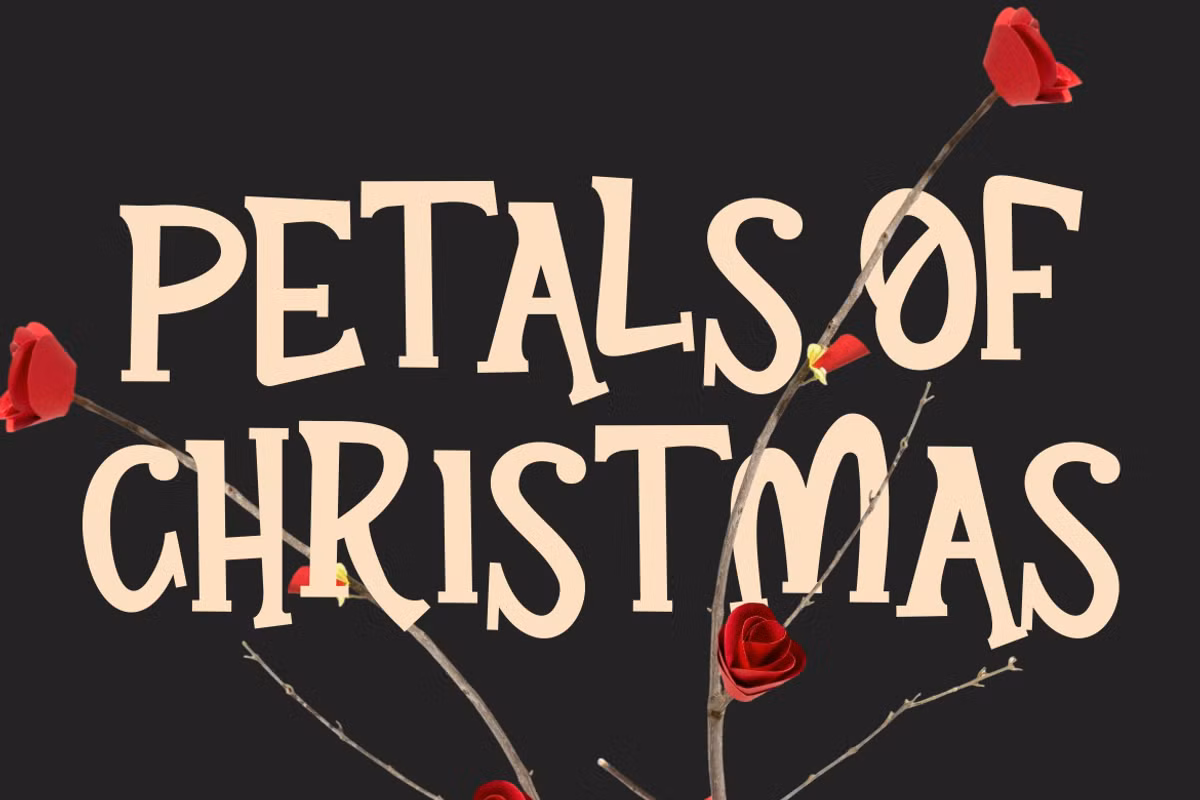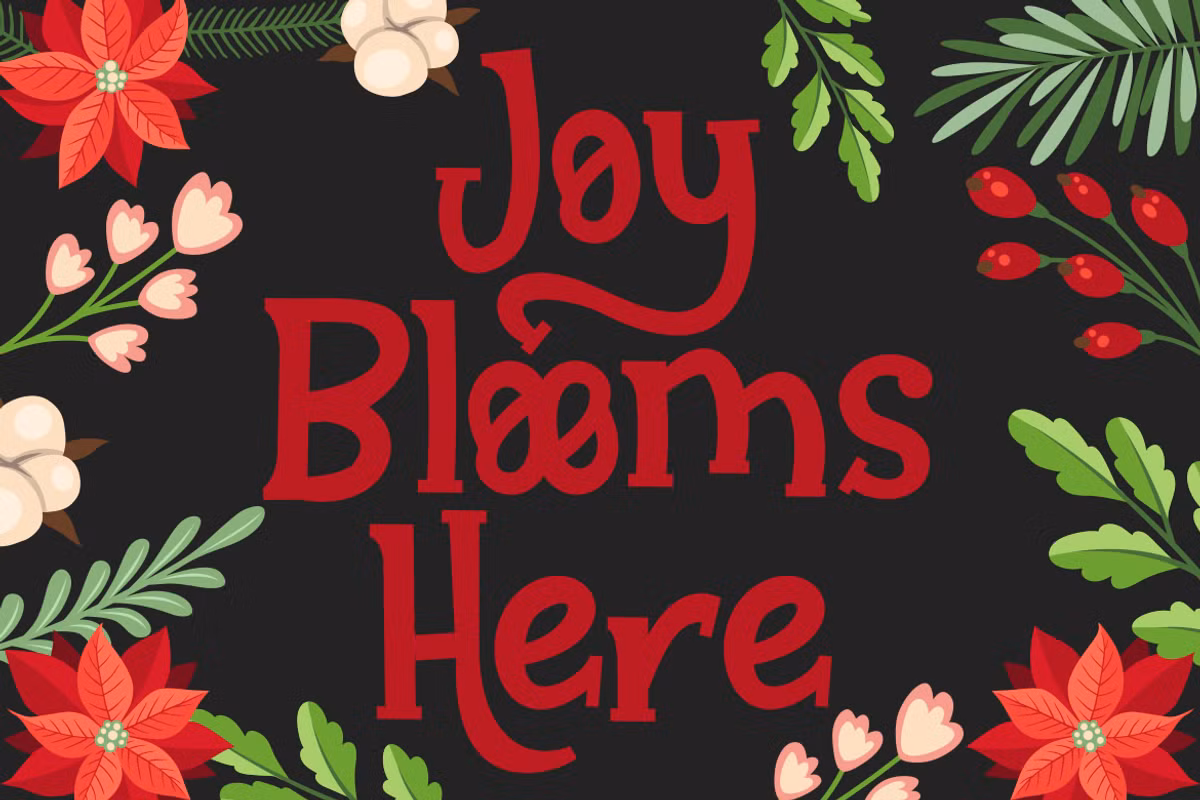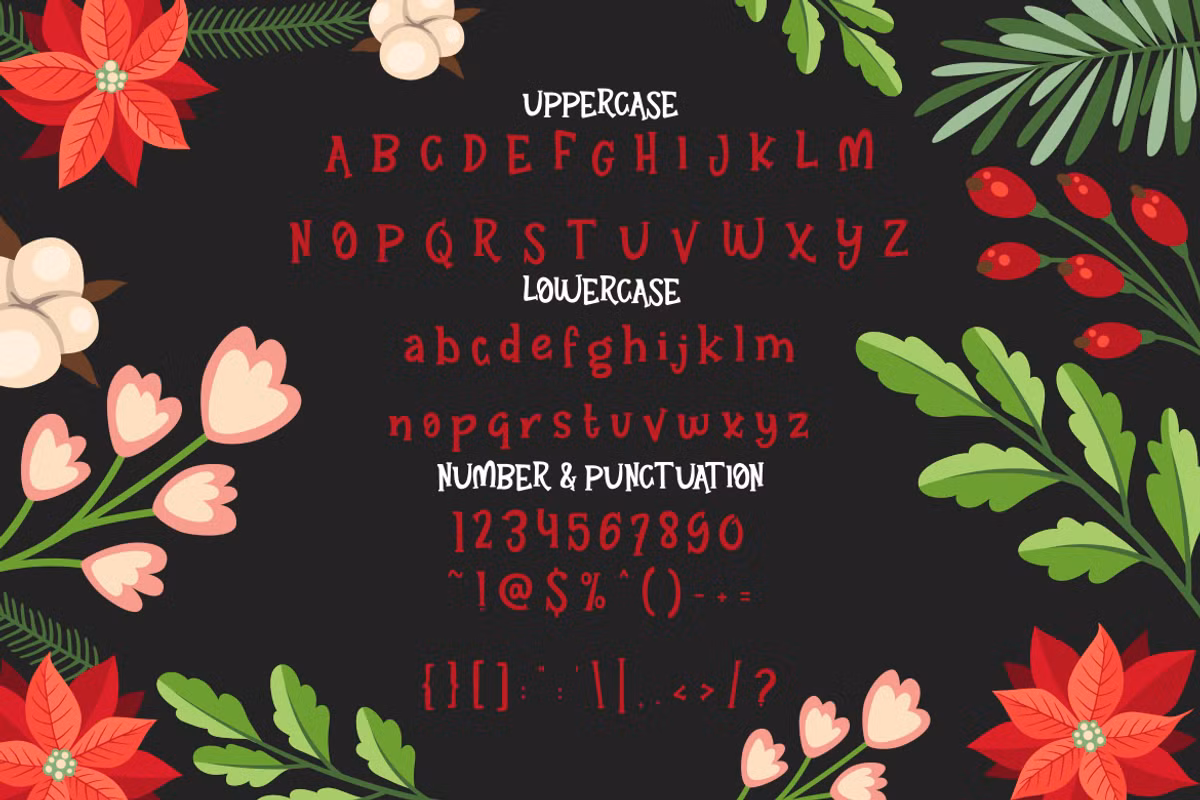
Holly Haven Serif Display Font: Festive Typeface for Holiday Designs
Introduction to Holly Haven Serif Display Font
The Holly Haven Serif Display Font is a beautiful font that’s perfect for the holiday season. It’s got a warm and joyful feel to it, and its bold letters make it really stand out. This font is great for making headings and titles that need to grab people’s attention. The curves are smooth and the strokes are slightly tapered, which gives it a fancy look. It’s a great choice for anyone who wants to add a little extra something to their designs during the holidays. With its confident and elegant appearance, the Holly Haven Serif Display Font is sure to make any project feel more special and festive. Whether you’re making cards, posters, or just want to add some holiday cheer to your website, this font is a great way to do it.
The Holly Haven font is all about finding a perfect balance between its thick and thin lines. This balance doesn’t just make the font easy to read, but it also creates a nice rhythm that guides your eyes as you read. The letters in this font are tall and slender, which makes them stand out clearly in any layout. Plus, the soft serifs give the font a classic feel that works well in both modern and traditional designs. Overall, the Holly Haven font is great for creating a clear and visually appealing look. Its classic touch and modern feel make it versatile and easy to use in many different contexts.
Design Style of Holly Haven Serif Display Font
The Holly Haven Serif Display Font is a beautiful combination of festive fun and sophisticated typography. It’s perfect for designs that want to spread joy and warmth. The font has a playful feel, but it’s also very polished, which makes it great for special occasions. The little decorative curves on the letters add a touch of friendliness, making the font feel welcoming and not too fancy. Overall, the Holly Haven Serif Display Font is a great choice when you want to create a design that’s both celebratory and inviting.
Characteristics of the Typeface
- Bold and Confident Letterforms: The font’s bold design ensures that it commands attention in any setting.
- Balanced Contrast: Holly Haven’s thick and thin lines create a visual rhythm that enhances readability.
- These details give the font a classic feel, which makes it work well with lots of different design styles.
- Playful Curves: The gentle curves introduce a sense of friendliness and warmth, perfect for holiday-related projects.
Use Cases for Holly Haven Serif Display Font
The Holly Haven Serif Display Font is really versatile, which makes it perfect for lots of different design projects, especially ones that have to do with holidays. Here are some examples of how you can use it:
- Logos: Create memorable and festive branding that resonates with holiday themes.
- Advertisements: Use the font to attract attention in print and digital marketing campaigns during the holiday season.
- Posters: Design eye-catching posters for events, sales, or gatherings that celebrate the holidays.
- Greeting Cards: The friendly and inviting nature of the font makes it perfect for crafting heartfelt messages.
- Invitations: Whether for a Christmas party or New Year’s celebration, Holly Haven adds a touch of elegance to any invite.
- Product Packaging: Enhance the festive appeal of products with this decorative typeface on labels and packaging.
Pairing Suggestions for Holly Haven Serif Display Font
When incorporating the Holly Haven Serif Display Font into your designs, pairing it with complementary typefaces can enhance its visual impact. Here are some suggestions for effective pairings:
When you’re looking for a font combination that’s both modern and timeless, try pairing Holly Haven with simple sans serif fonts like Montserrat or Lato. This contrast is really effective in adding some energy to your design, making it stand out. The clean lines of these sans serif fonts balance out the elegance of Holly Haven, creating a look that’s both stylish and easy to read.
Script Fonts:
Combine it with a playful script font like Pacifico or Great Vibes for invitations and greeting cards, creating a warm and inviting aesthetic.
Other Serif Fonts:
Use it alongside a more traditional serif font, such as Playfair Display, to maintain a cohesive look while providing visual interest through contrast.
The Holly Haven Serif Display Font is really something special – it’s perfect for the holiday season. What makes it stand out is how it combines being bold, elegant, and fun all at once, which makes it great for lots of different uses like branding, ads, cards, and packaging. If you take the time to understand what makes this font tick and look into how you can use it, along with what other fonts it pairs well with, you’ll be able to use it to make your holiday designs really pop – they’ll be happy, eye-catching, and stick in people’s minds. Whether you’re making something simple or complex, this font has the potential to add a lot of value and make your designs more engaging. By incorporating the Holly Haven Serif Display Font into your work, you can create a lasting impression on your audience and make the most of the holiday season.